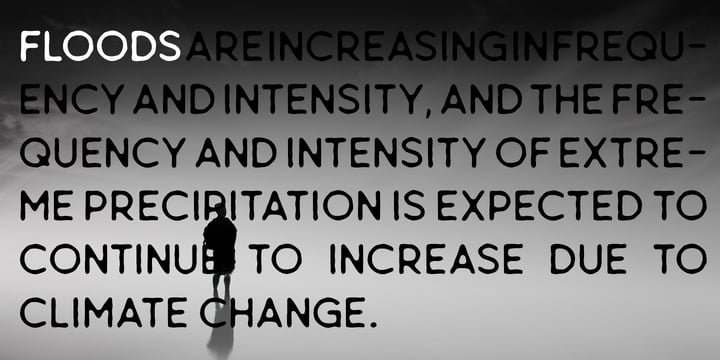
Latica Stamp
Latica Stamp by Vertigo
Latica Stamp Font Family was designed by Adam Ryszewski and published by Vertigo. Latica Stamp contains 2 styles and family package options. More about this family
About Latica Stamp Font Family
Latica Stamp is a rounded, display font, imitating stamped writing, with deformed lines. Body text looks clear and legible, but the best use is where there is a need to escape from the clichéd, classic, sharp font. It works well for bold projects, posters, billboards, press advertisements, websites, packaging. It provides multilingual support.